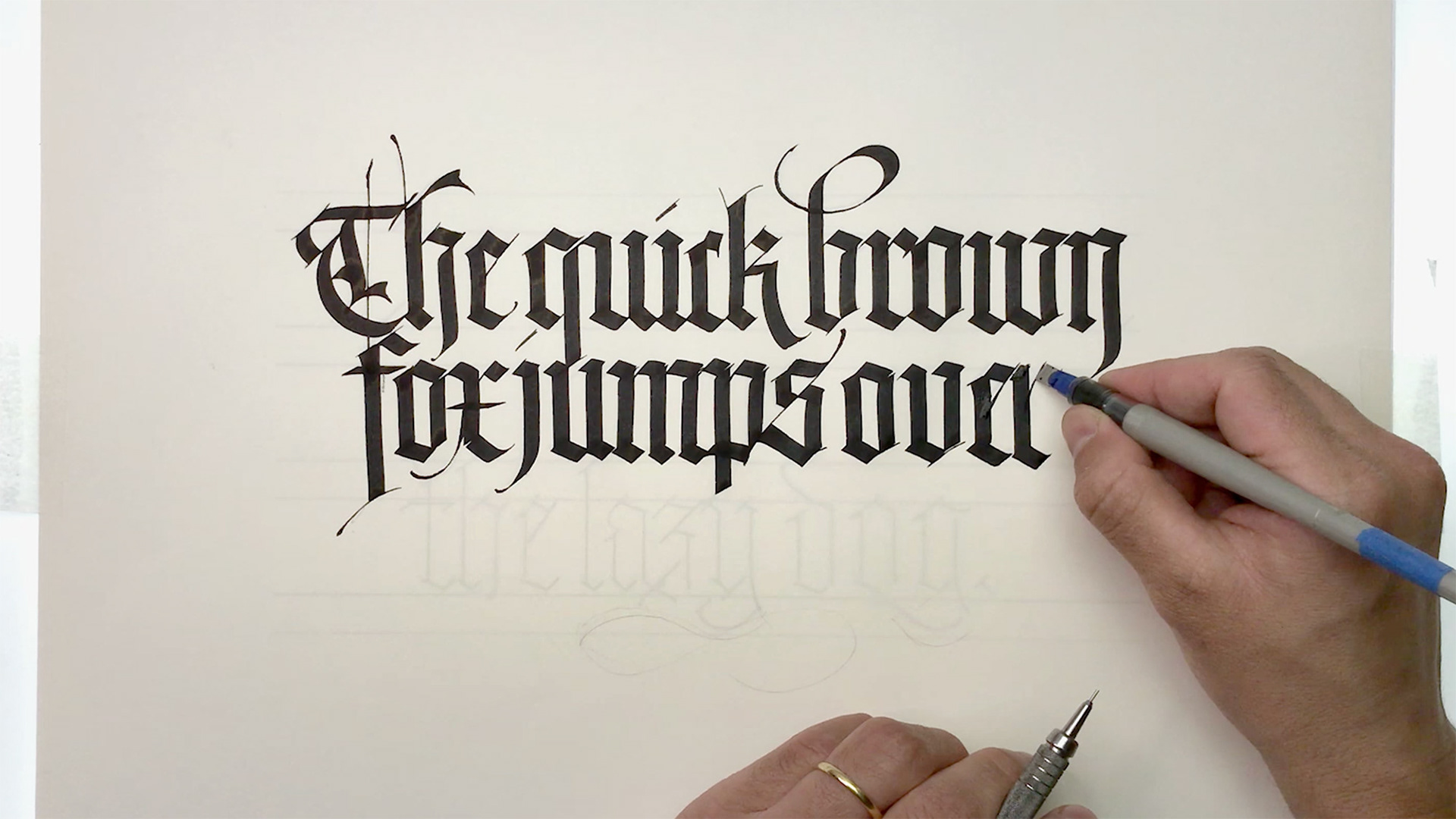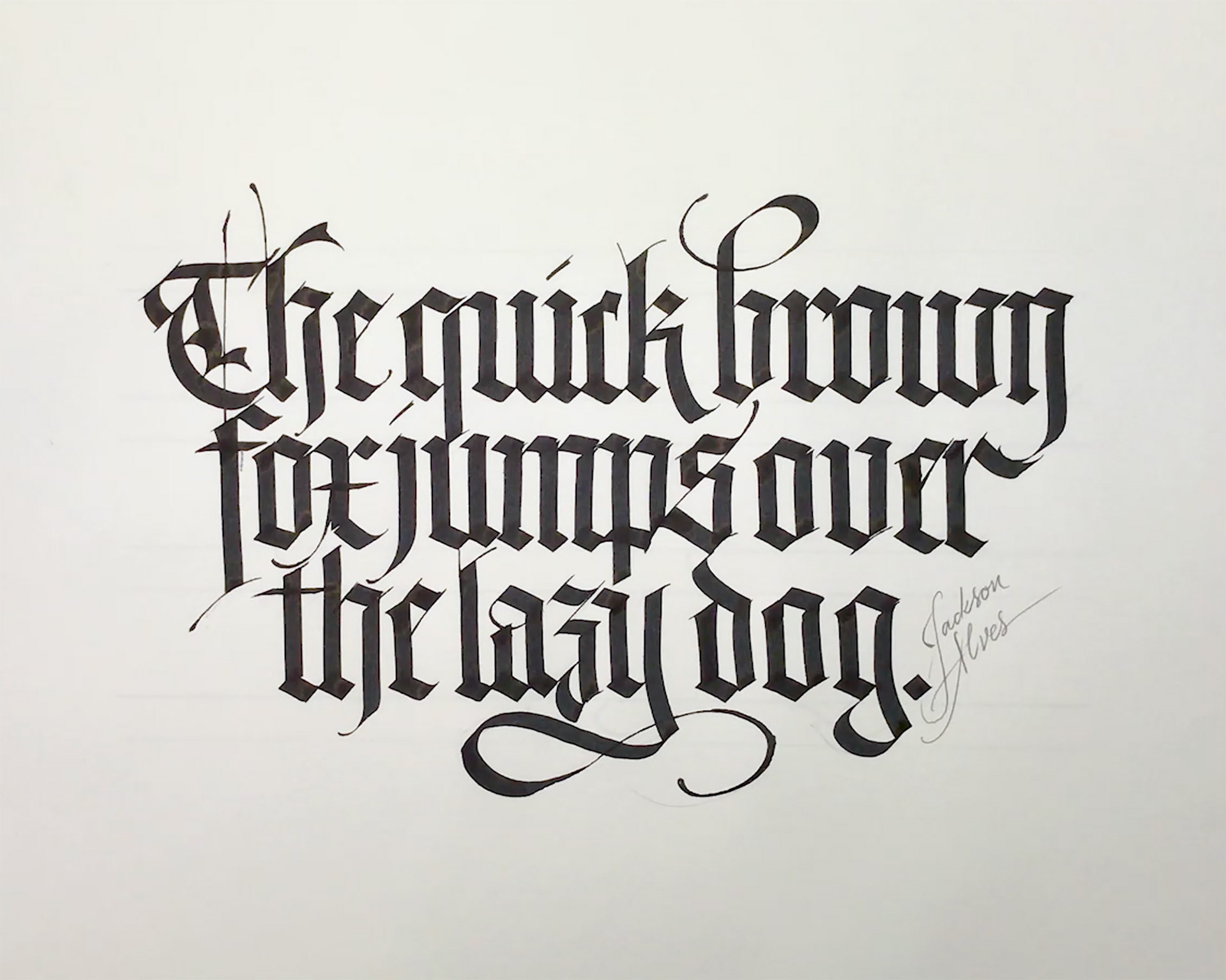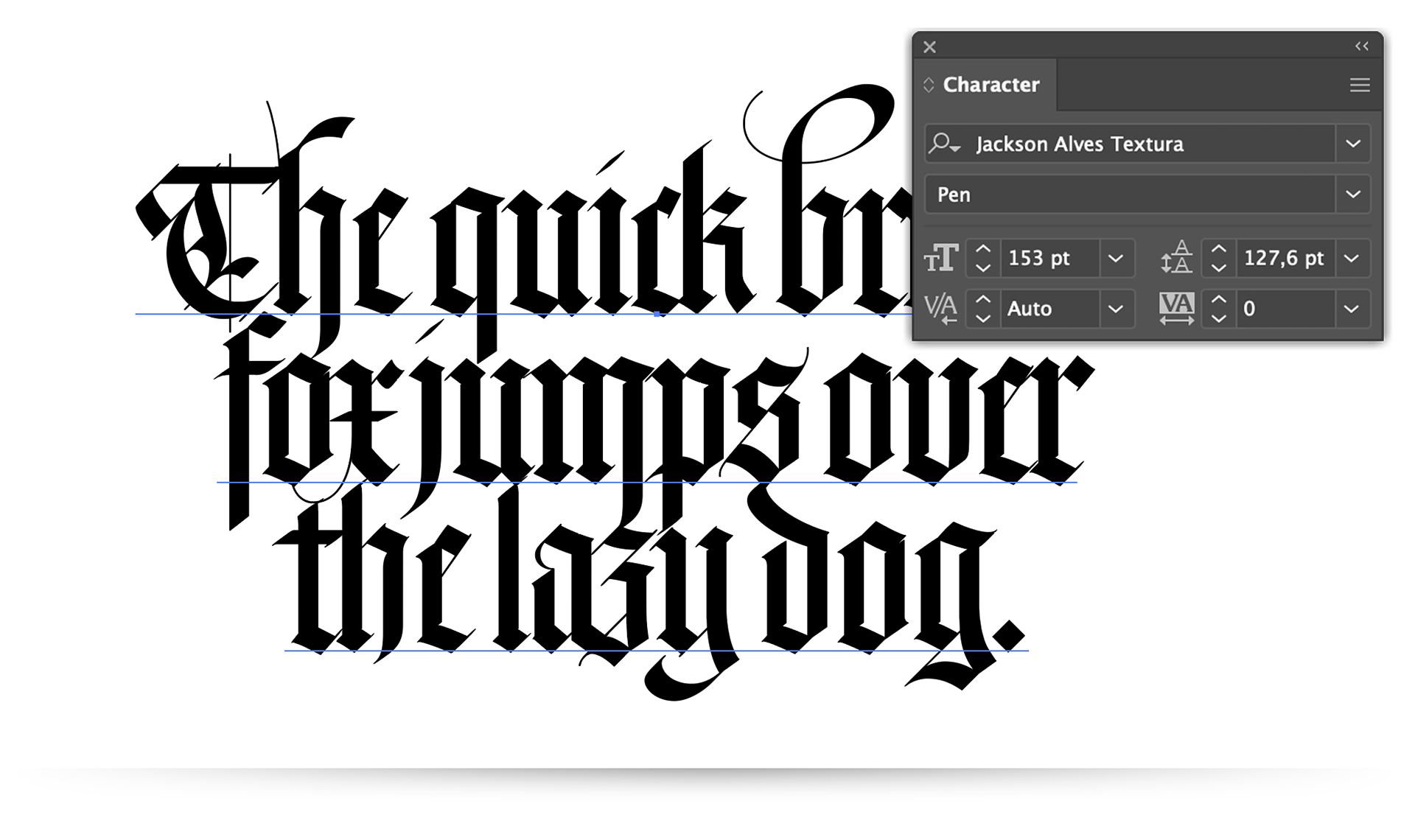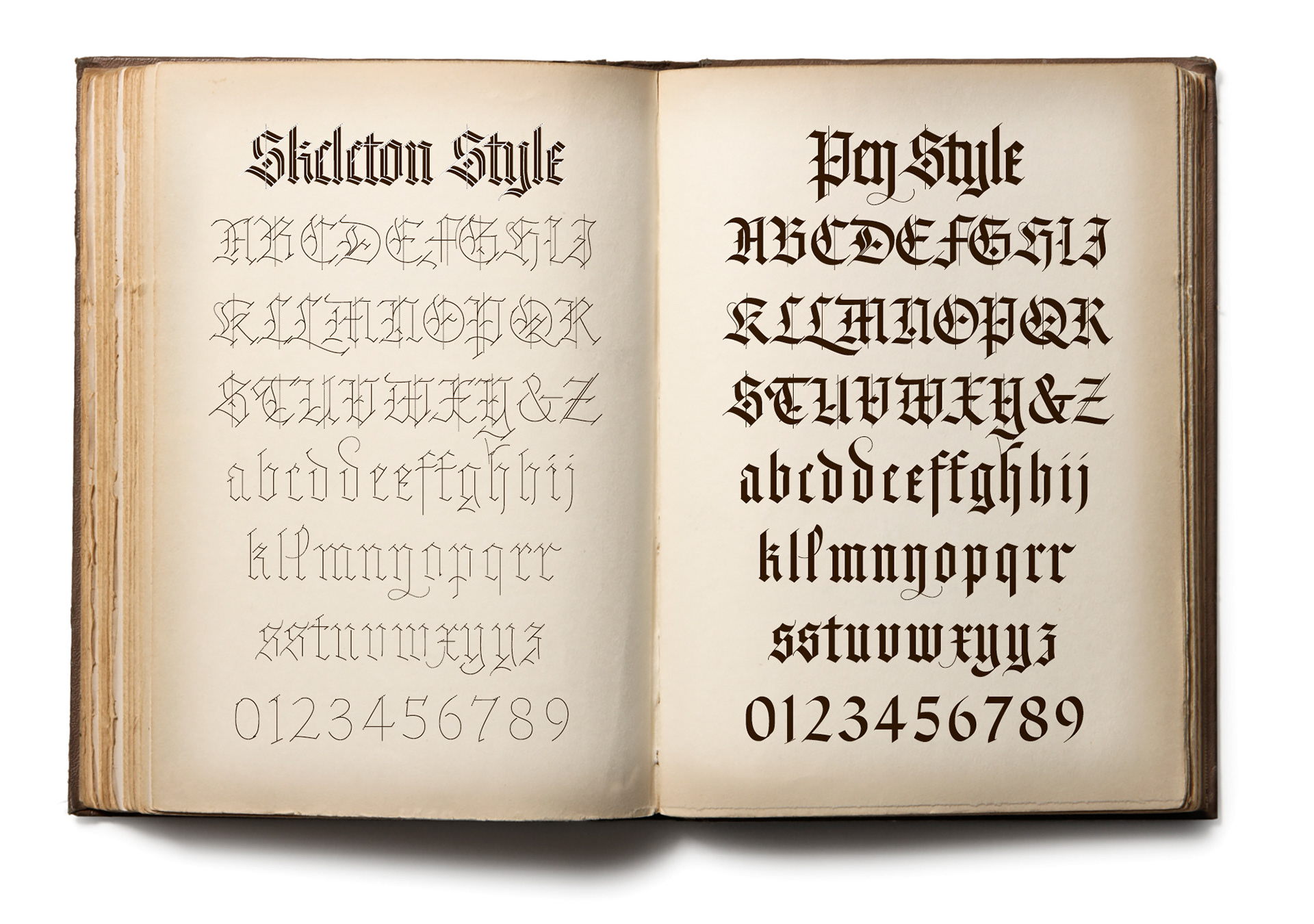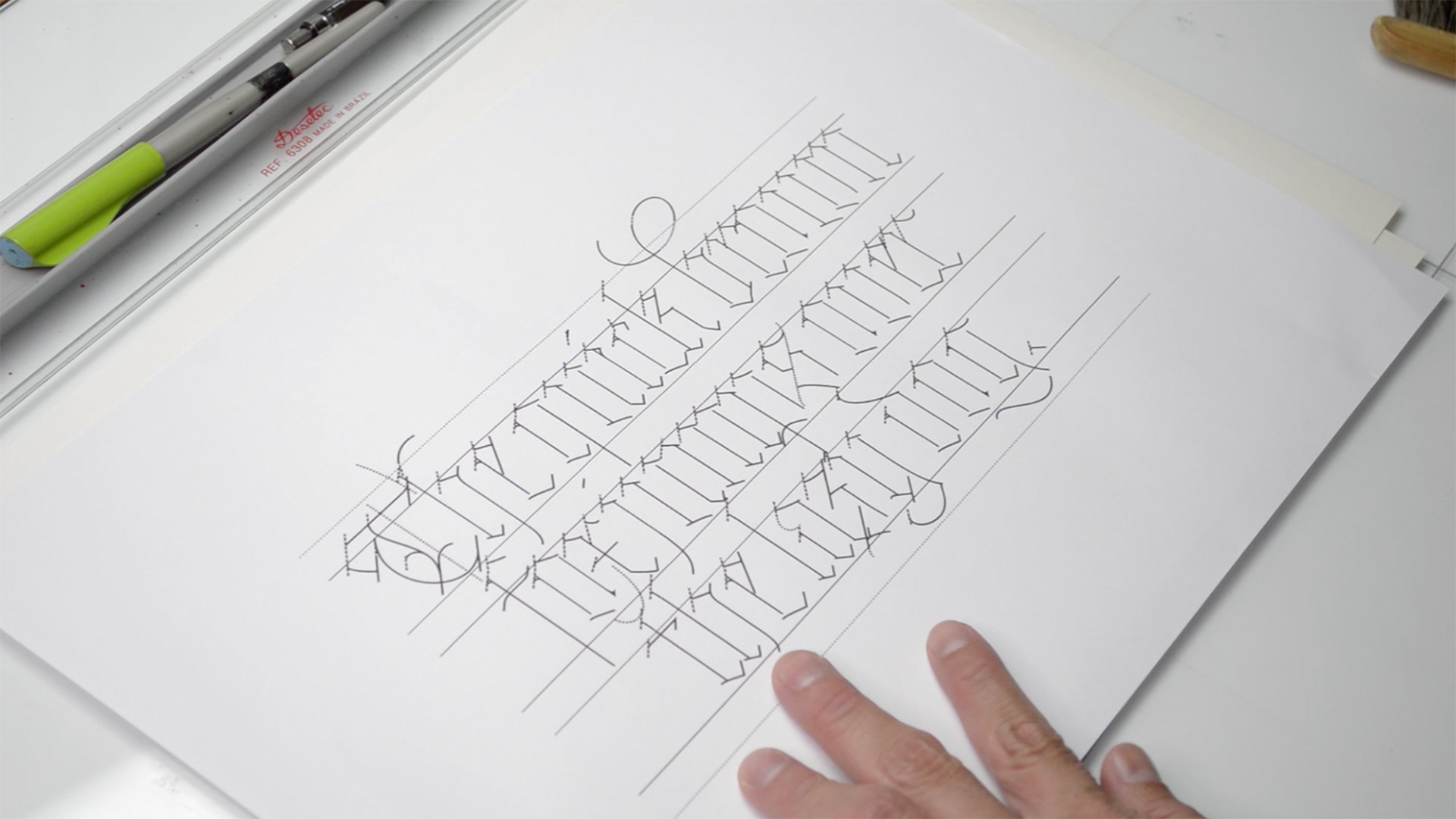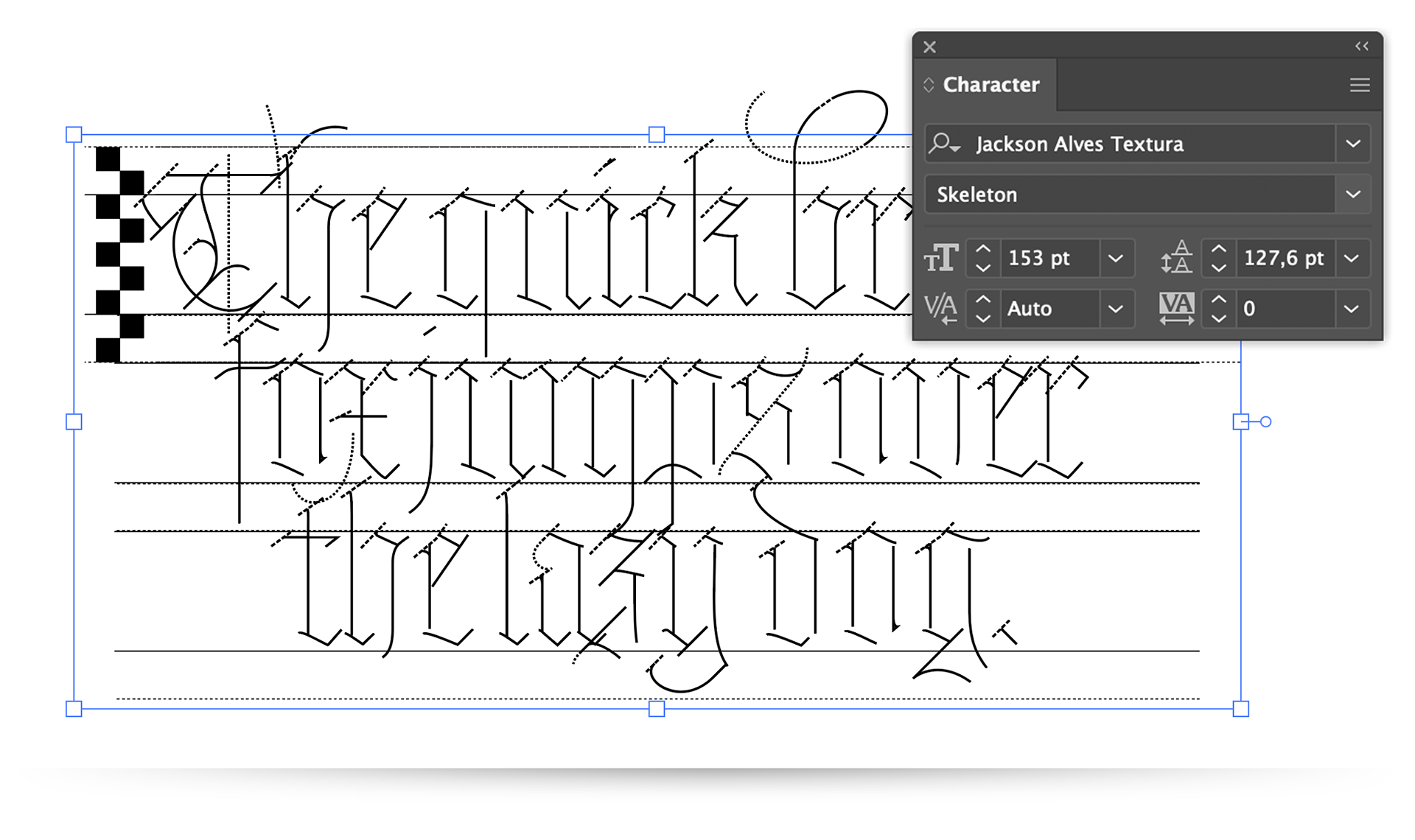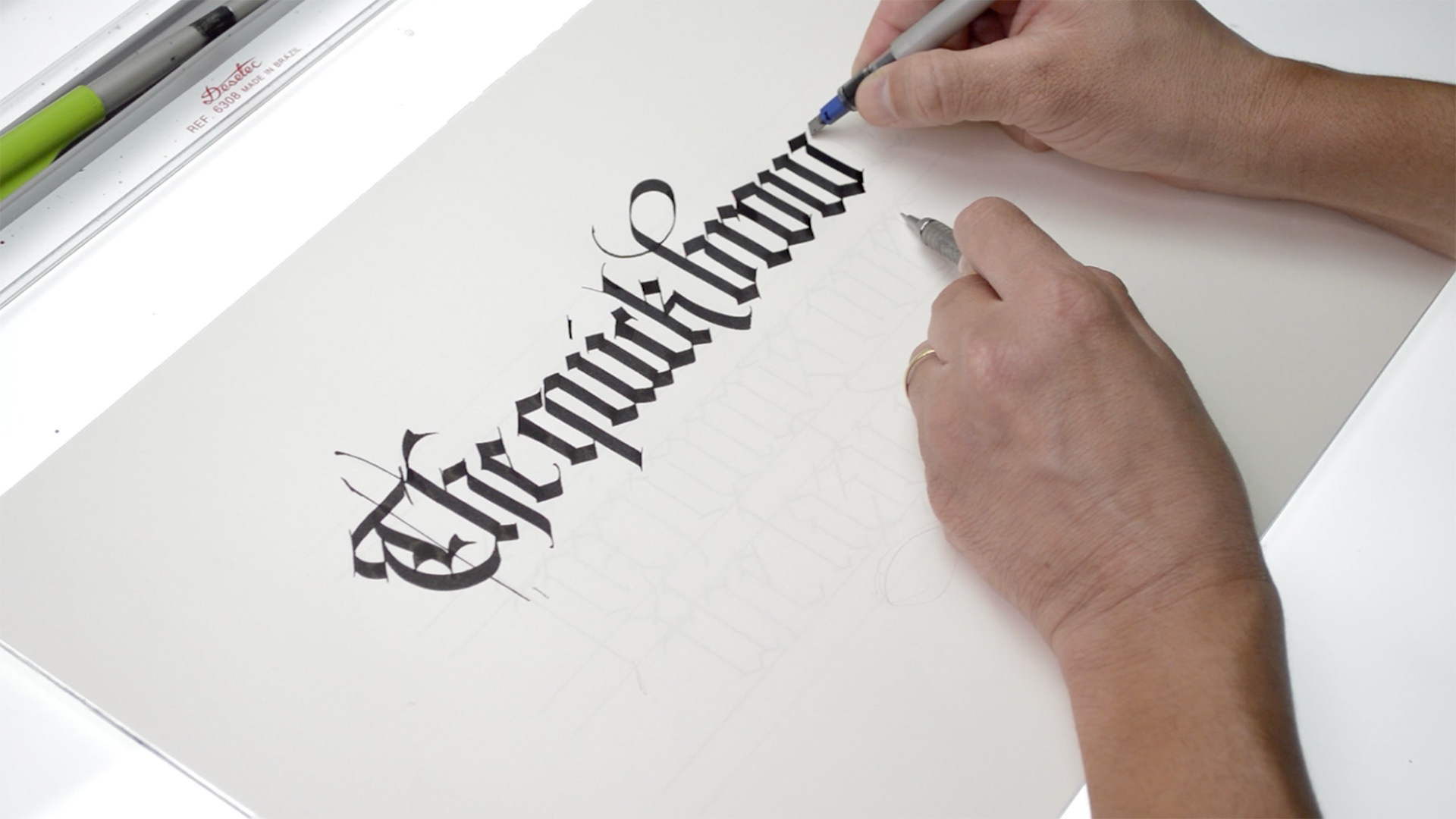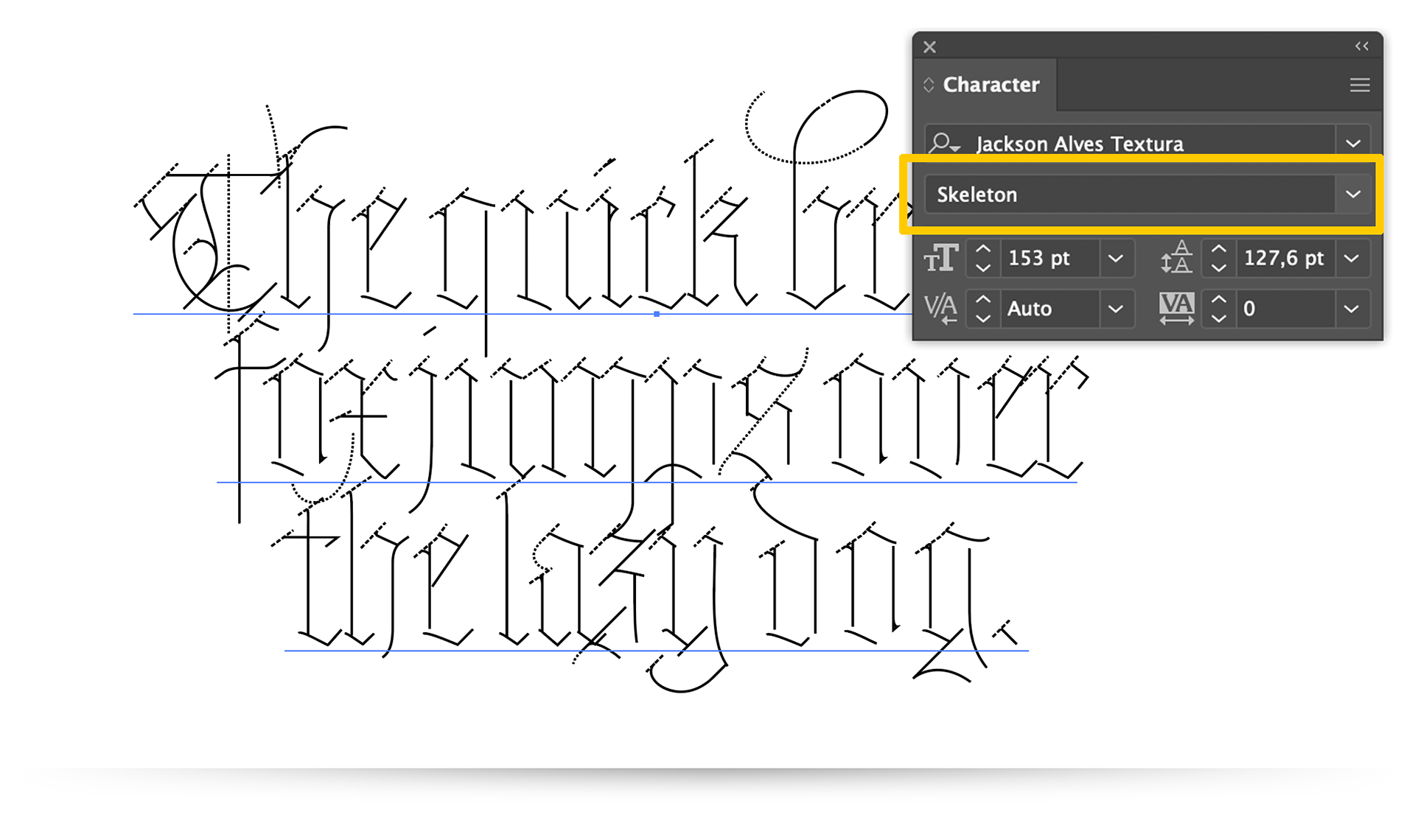
Jackson Alves Textura Typeface
A gothic style Textura Quadrata typeface
I created this typeface as a tool to optimize the process of creating a calligraphic composition or even help beginners to study and practice calligraphy in the gothic style. The font has two styles: ‘Pen’ and ‘Skeleton’. The style ‘Pen’ emulates the gothic style made with a broad edge nib calligraphy pen and the style ‘Skeleton’ shows the ductus of the letters, where you need to trace the pen to get the correct shape.
People who are starting learning calligraphy can use the Skeleton style to print and practice writing over it. Professionals can use it to create the calligraphic composition much faster on the computer using the Pen style and then print the Skeleton style as a guide for their calligraphic projects on paper. It's a technique I usually use when I have projects with a tight deadline, and it really saves me time!
Jackson Alves Textura - Fonte
Uma fonte no estilo gótico Textura Quadrata
Eu criei essa fonte como uma ferramenta para otimizar o processo de criar composições caligráficas ou mesmo ajudar iniciantes em caligrafia a estudar e praticar caligrafia no estilo gótico. A fonte tem dois estilos: ‘Pen’ e ‘Skeleton’. O estilo ‘Pen’ simula o estilo gótico feito com uma pena de ponta quadrada e o estilo ‘Skeleton’ mostra o ductus das letras, onde você precisa traçar com a caneta para conseguir a forma correta.
Pessoas que estão começando a estudar caligrafia podem usar o estilo Skeleton para imprimir e praticar escrevendo por cima. Profissionais podem usar para criar composições caligráficas muito mais rápido no computador usando o estilo Pen e imprimindo o estilo Skeleton como guia para seus projetos caligráficos no papel. É uma técnica que eu normalmente uso quando eu tenho projetos com prazo curto e isso realmente me poupa bastante tempo!
How it works
How you can use the font to help you on calligraphy
Como funciona: Como você pode usar a fonte para lhe ajudar na caligrafia.
1st. Create the composition on Adobe Illustrator, InDesign, Photoshop or other graphic APP.
1º. Cria a composição em software gráfico como Adobe Illustrator, por exemplo.
2nd. Set the proportional font size based on which pen you'll use.
2º. Configure o tamanho da fonte conforme a caneta que vai usar.
3th. Change the style to ‘Skeleton’.
3º. Mude o estilo da fonte para ‘Skeleton’.
4th. Add the guides. Type several underlines ‘_ ’ and set the OpenType feature ‘Discretionary ligatures’.
4º. Adicione as guias. Digite vários underlines ‘_’ e ative a opção ‘Discretionary ligatures’ na janela de OpenType.
5th. Print it!
5º Imprima!
6th. Write over the Skeleton with you calligraphy pen.
6º. Escreva por cima do esqueleto com sua caneta de caligrafia.
7th. Your masterpiece ir ready!
8º Seu trabalho está pronto!